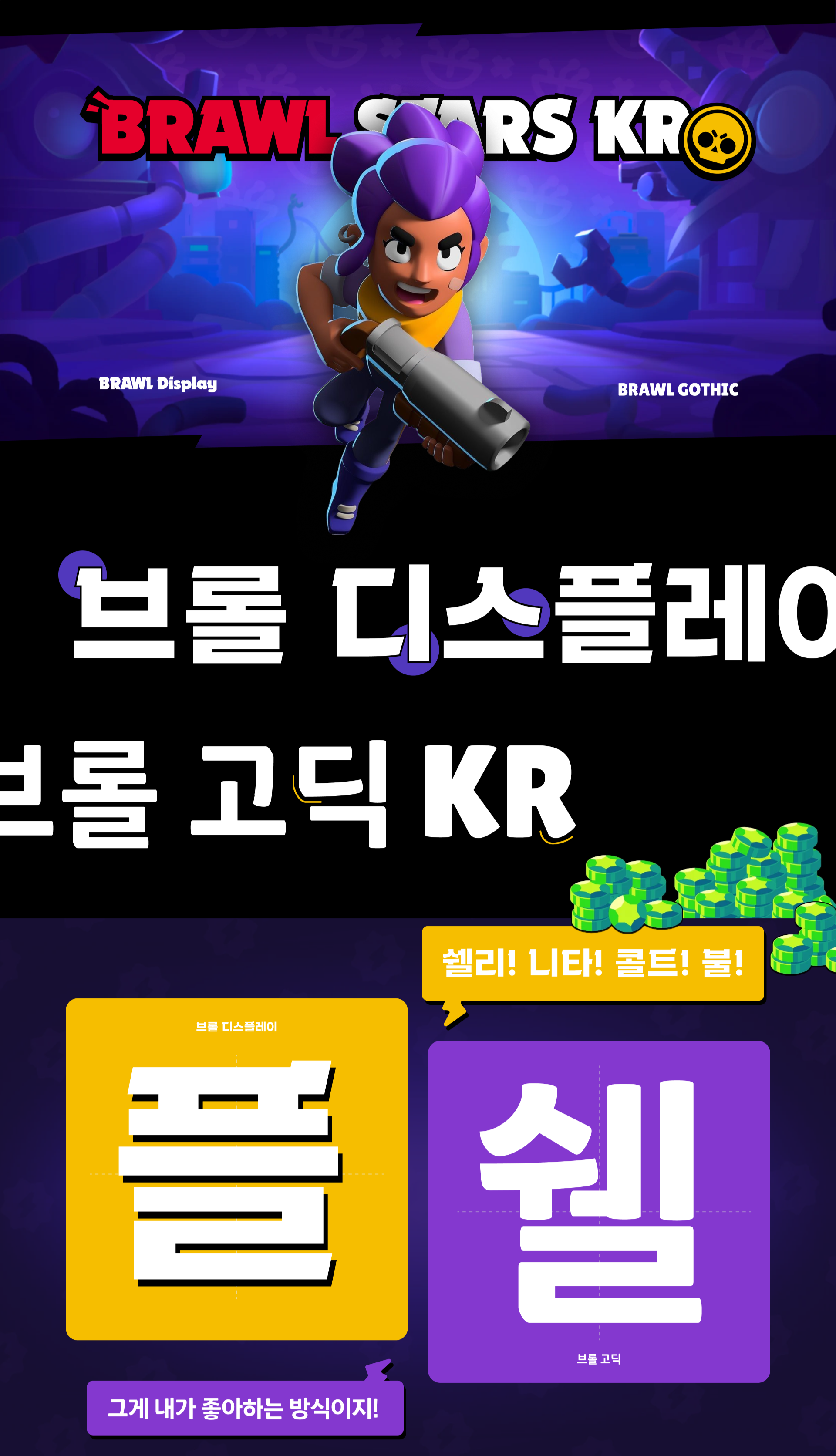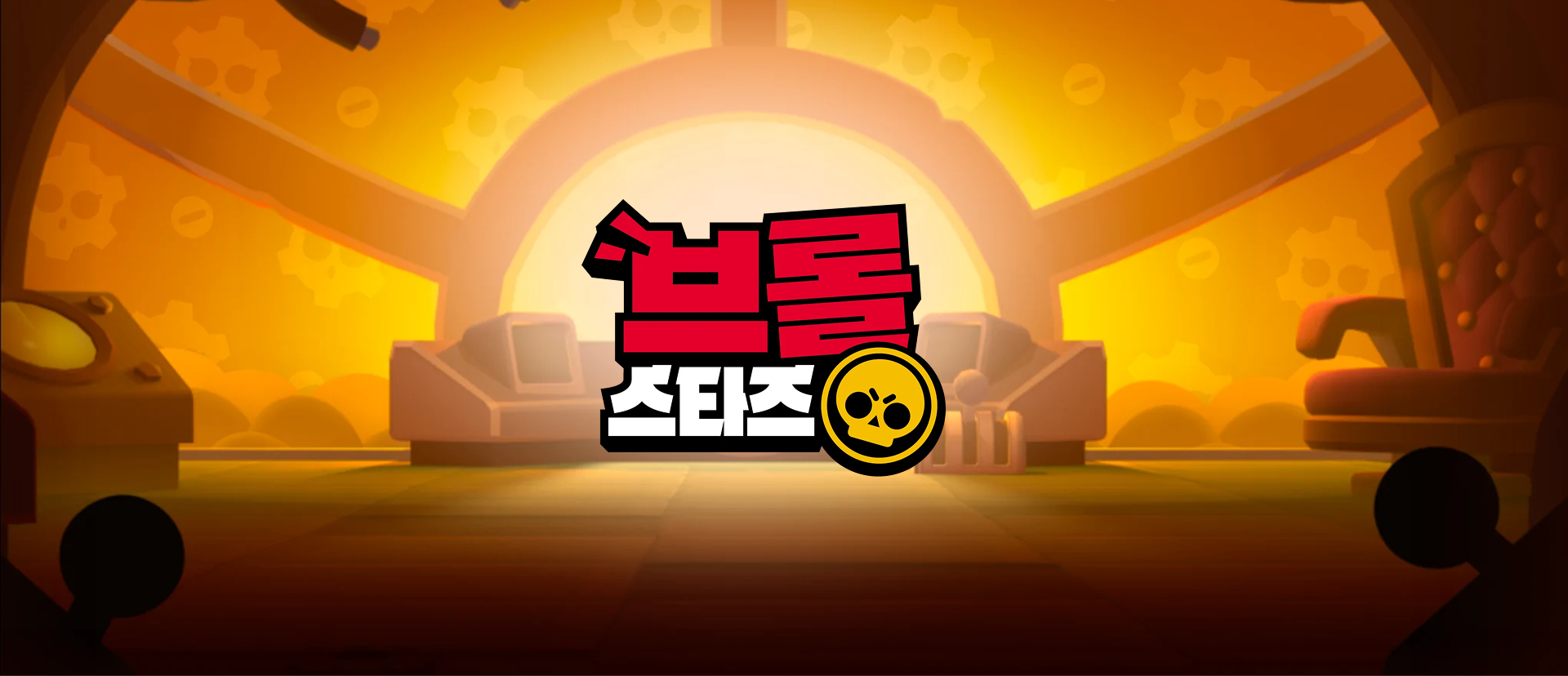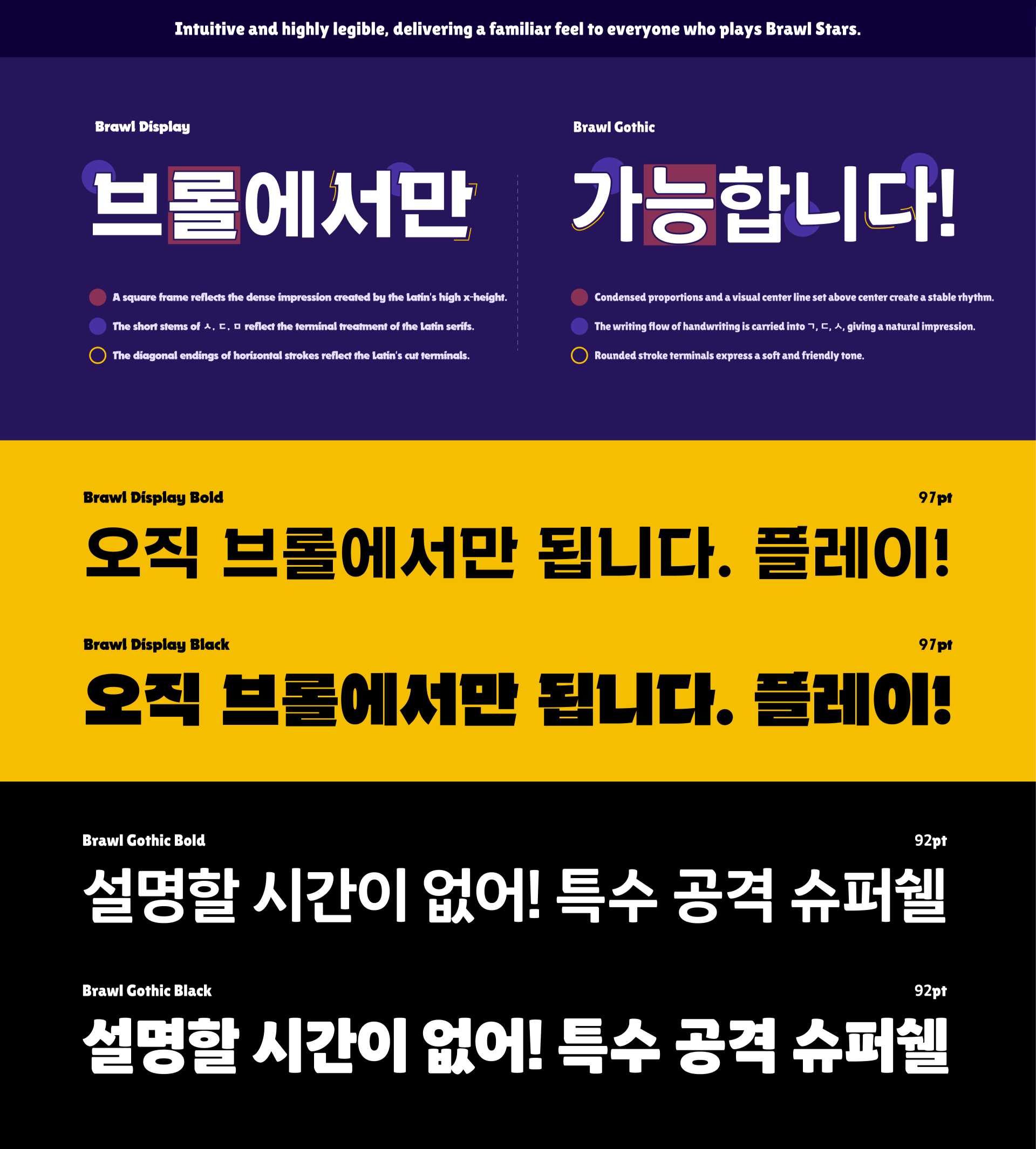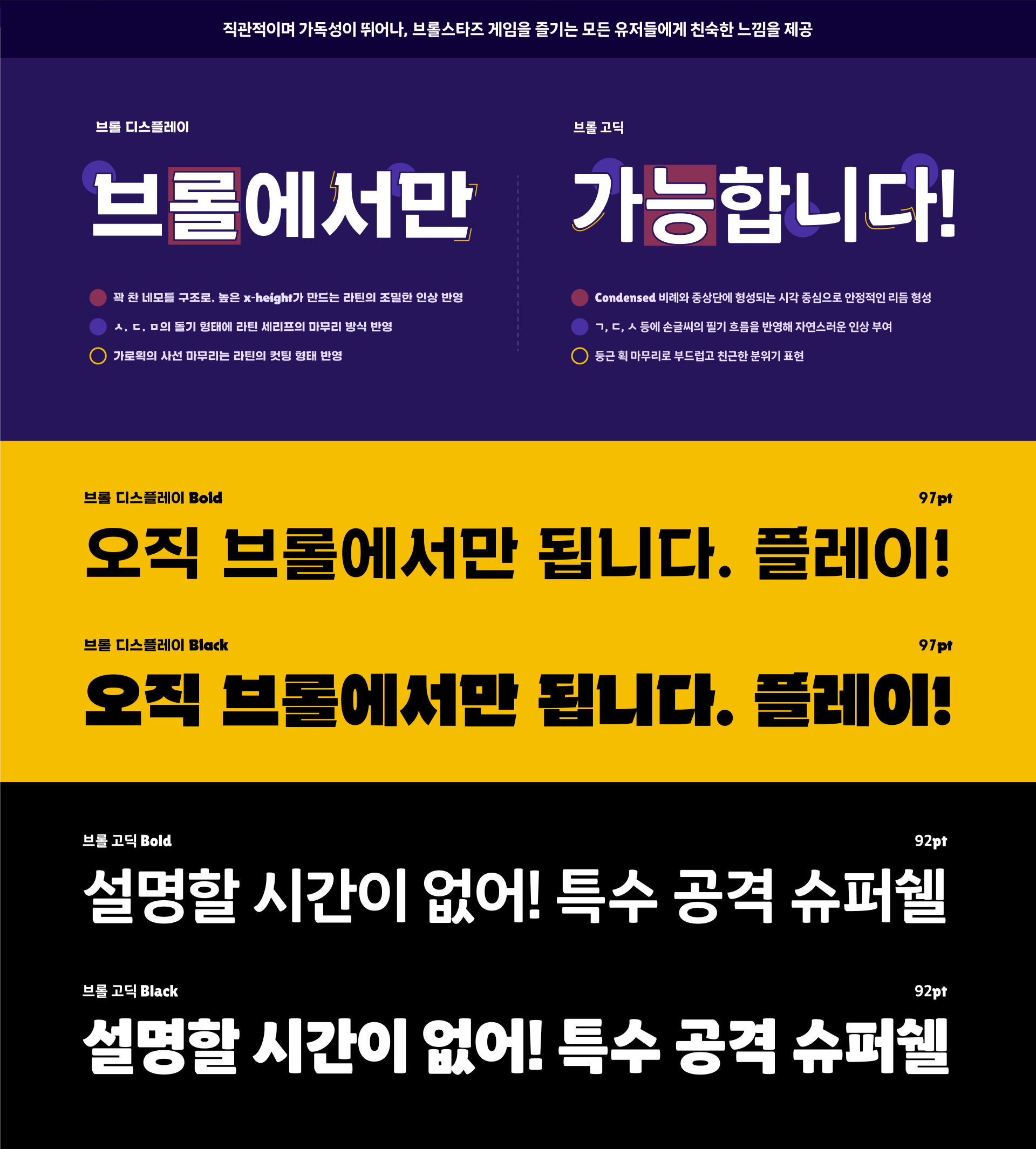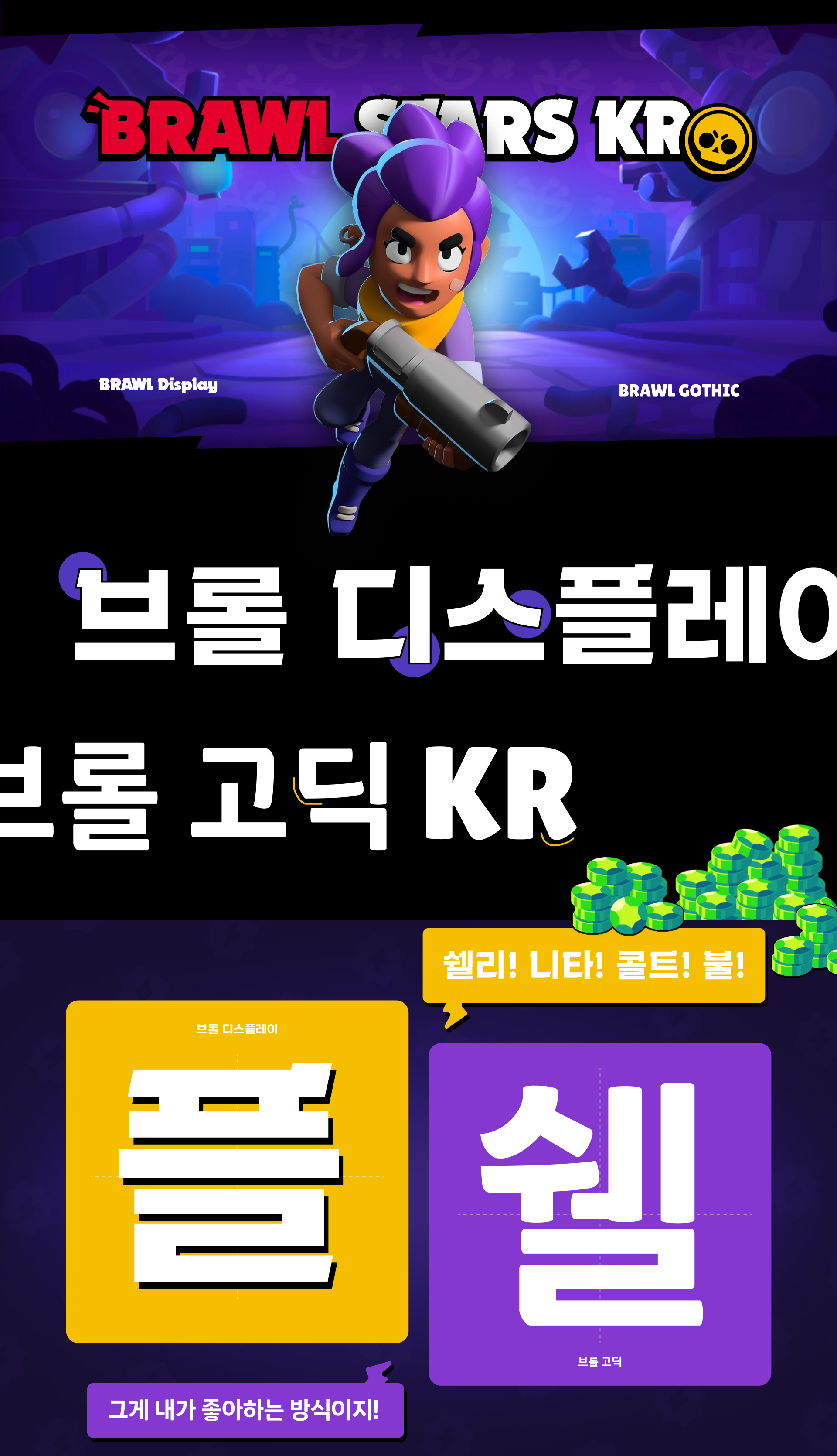
KoBrawl Display & Gothic
「KoBrawl Display & Gothic」is a typeface family that brings the identity of Brawl Stars into Hangul. It consists of Brawl Display, which captures the bold and dynamic character of the logo, and Brawl Gothic, a Hangul reinterpretation of the typeface familiar from the game and its community. Brawl Display conveys the game’s distinctive energy and strong presence in titles, while Brawl Gothic provides excellent legibility and a familiar feel in body text and interfaces, allowing the identity of Brawl Stars to be expressed consistently across various applications.